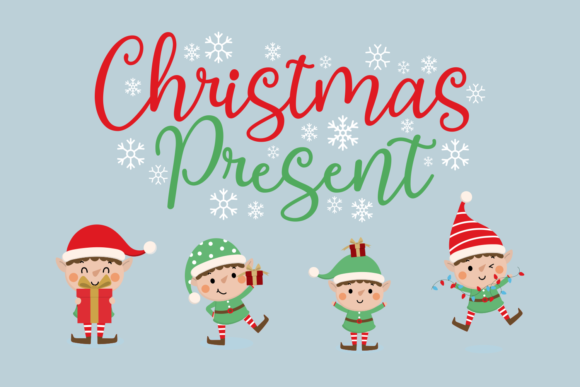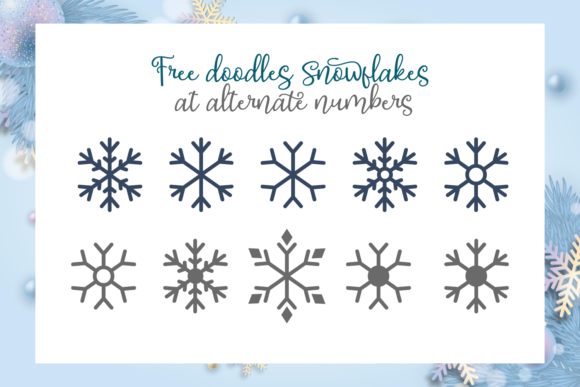
Beautiful Snowfall Font
db-ku.com - Script & Handwritten -- Beautiful Snowfall is a lovely and delicate script font that exudes elegance and class. This font was particularly crafted for those who need a beautiful and refreshing look to their designs. Beautiful Snowfall is PUA encoded which means you can access all of the glyphs and swashes with ease!